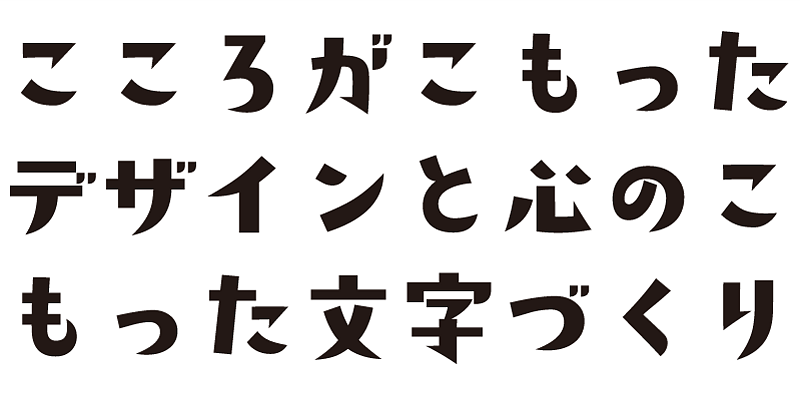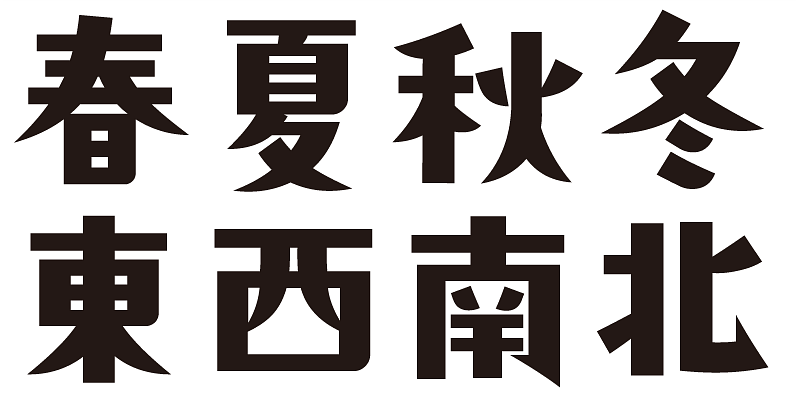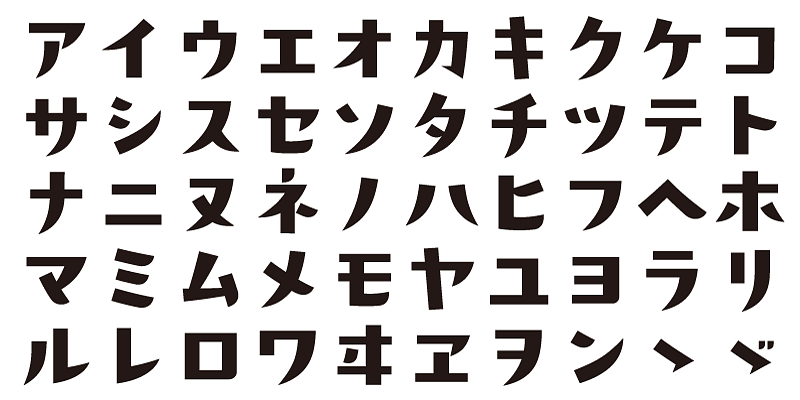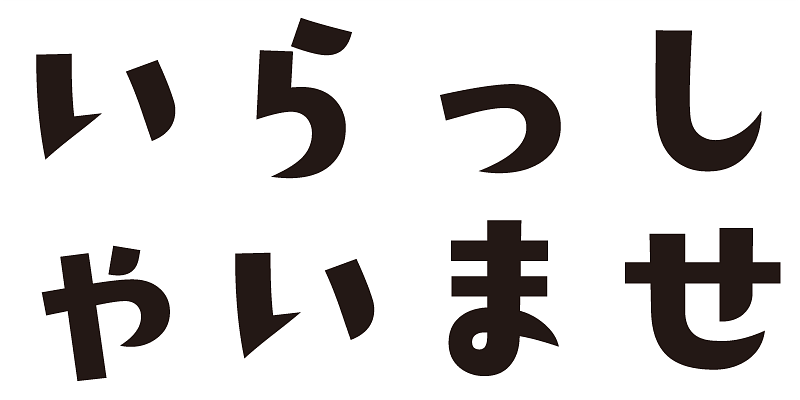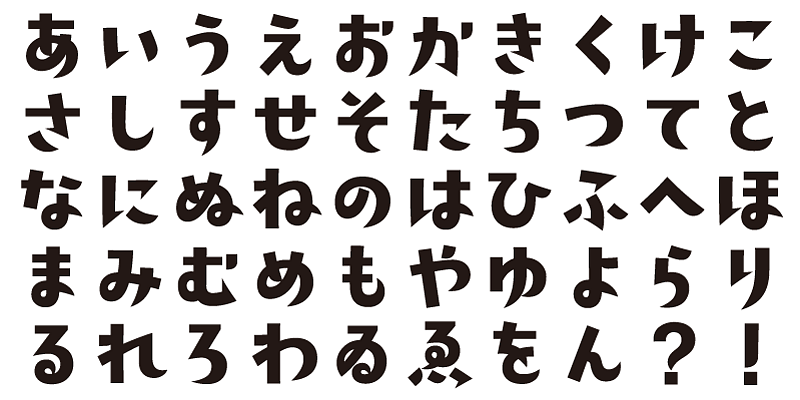
This design draws inspiration from the 1970s and 1980s, a time when many aspects of life were transitioning from analog to digital.
This font includes top 1,000 kanji characters chosen from character frequency tables made by newspaper companies, publishing houses and linguistic research institutes, plus about 400 alphanumeric, kana characters and punctuation marks.
We design typefaces with the hope that they will add underlying meaning to words expressed. We wish the user to feel good and experience comfort and joy when using these typefaces.